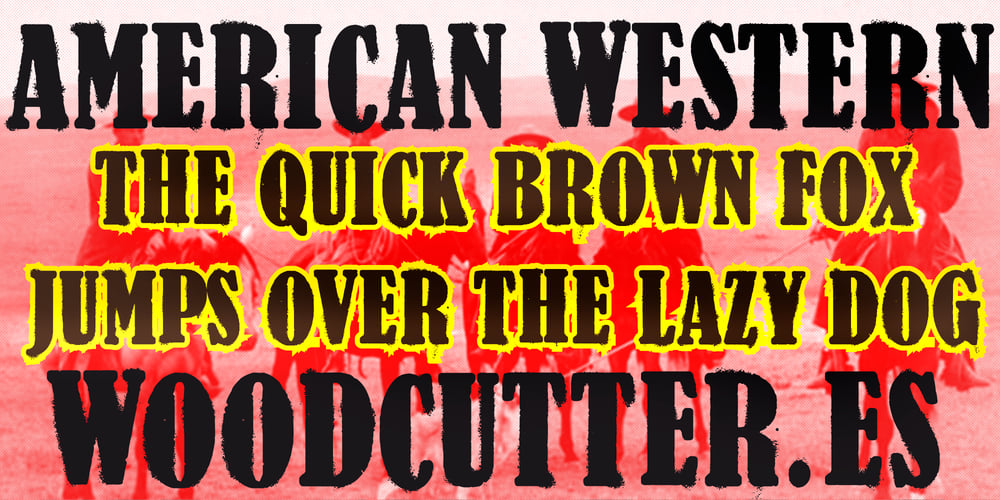
American Western Font Family was designed by Jordi Manero and published by Woodcutter. American Western contains 1 styles and family package options. “American Western” is a font that captures the essence of the Old West with its authentically western aesthetic. The uppercase letters feature worn and blurry contours, evoking the roughness and untamed character of the era. This typeface is ideal for projects aiming to convey a sense of history and adventure, perfect for posters, advertisements, and themed designs. “American Western” adds a touch of rusticity and authenticity, making any text stand out with a classic and timeless style reminiscent of the days of cowboys and lawless frontiers.